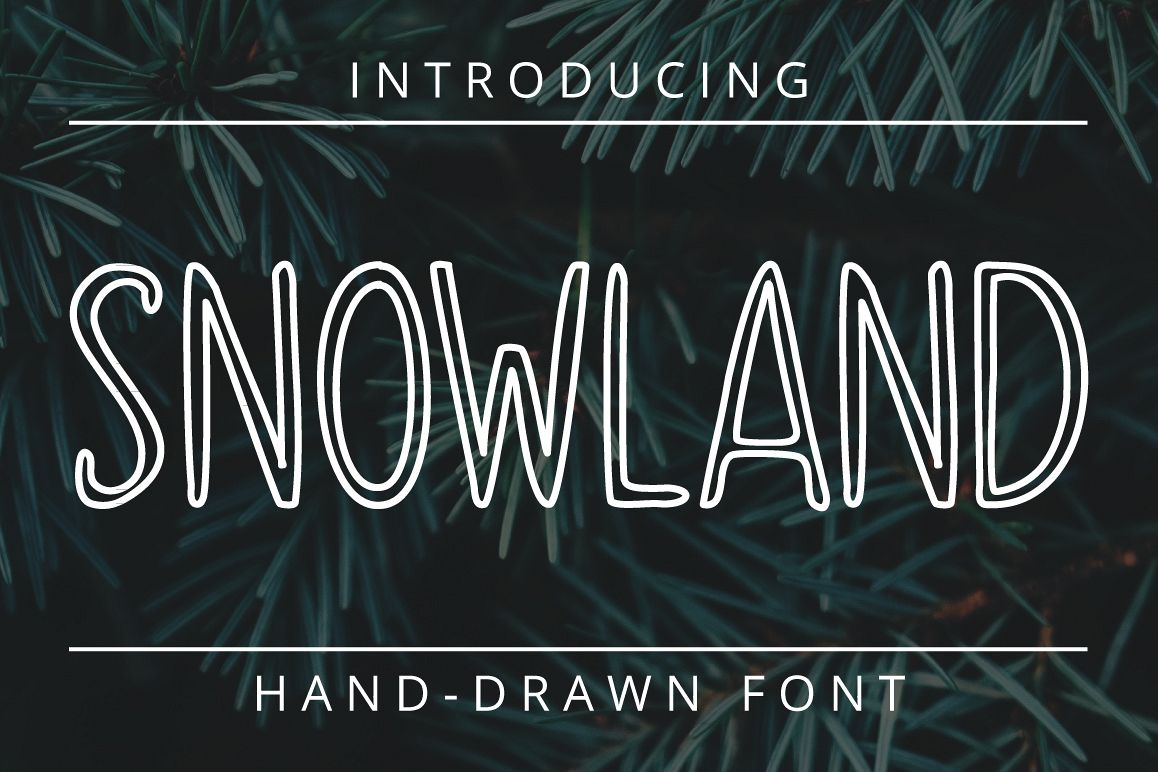
SNOWLAND - hand drawn winter font
to the first snow and to the winter with the new TrueType Winter font - SNOWLAND!
This font is fully hand-drawn that makes it look cute and cozy!
It contains
capital, lowercase letters, numbers and most characters from your keyboard.
This font will be perfect for modern products design, logos, t-shirt prints,
postcards and so on.
As a bonus
you get the second "snowy" version of the font. It will add some special
winter mood to your artworks: to the cards, photos, posters, etc.